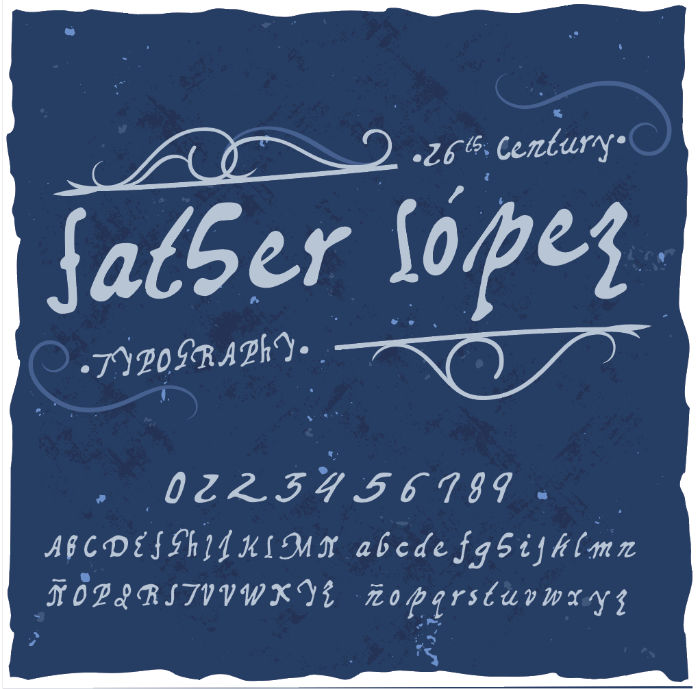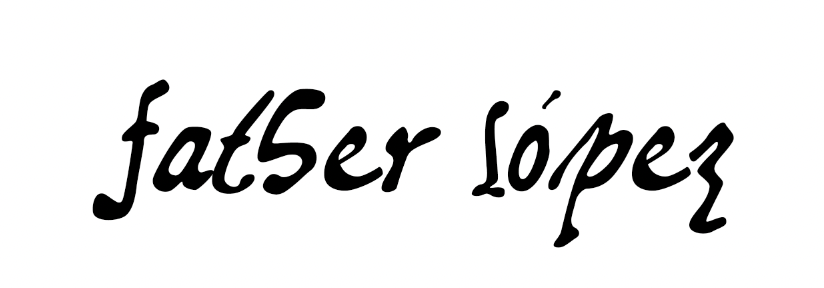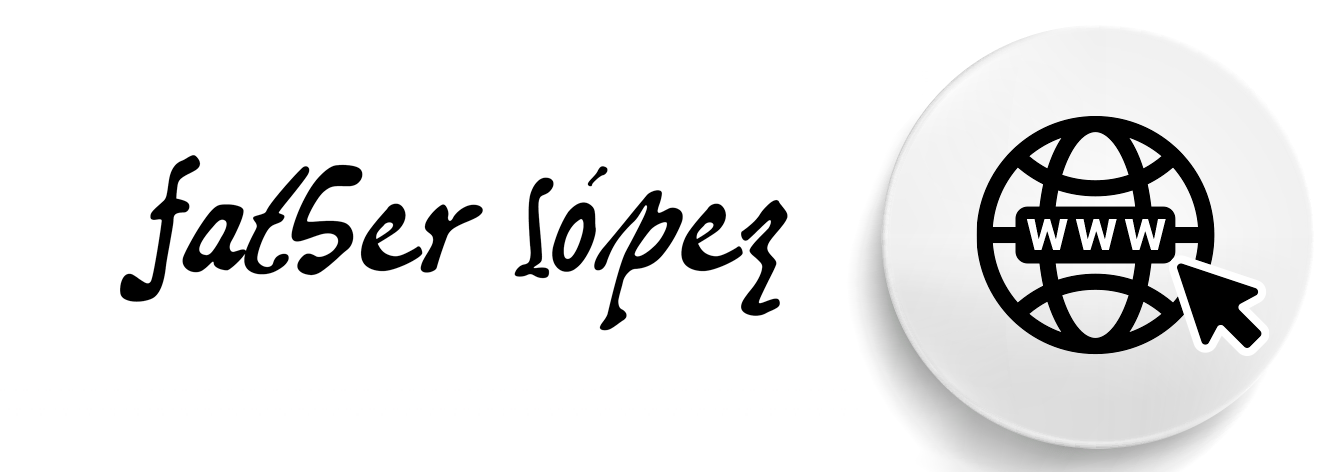
Father Francisco López de Mendoza Grajales was one of four priests recruited to join Pedro Menéndez de Avilés’ 1565 Florida expedition. Father López served as fleet chaplain, and on September 8, 1565, he celebrated the first Catholic Mass in the newly-established settlement of St. Augustine, Florida.
This font was created from Father López’s original memoir of the Menéndez expedition, housed in Seville’s Archivo General de Indias (AGI Patronato 19, R. 17). Written in his own hand, López’s account describes the transatlantic voyage, the storms that almost destroyed the fleet, and the dramatic weeks that followed the founding of St. Augustine, as Spanish and French colonists struggled for a foothold in northeast Florida.
The shape and size of the letters found in historical documents varied widely. As such, the spacing for these authentically historical fonts also fluctuates from style to style, with many of the letters extending beyond one or two lines. For best results, we recommend double spacing when using these fonts.